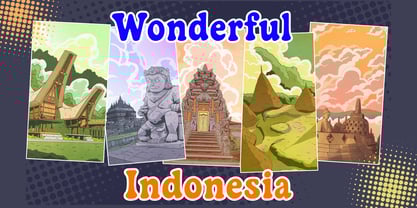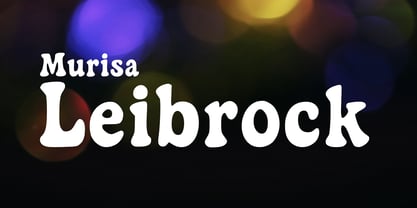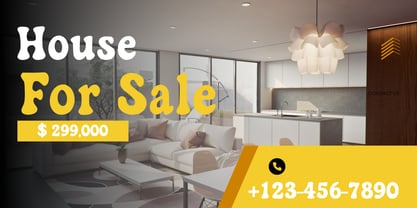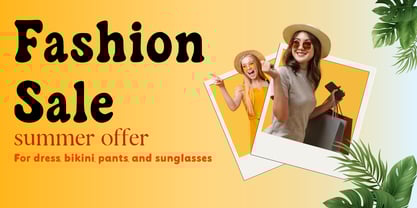
Murisa Leibrock
The Murisa Leibrock Font Family was designed by Lili Sadili and published by Murisa Studio. Murisa Leibrock contains 2 styles and family package options. More about this family
🎨 Murisa Leidbrock — Where Whimsy Meets Bold Expression
Step into a world of vibrant personality and irresistible charm with Murisa Leidbrock, a typeface that refuses to whisper. With its bulbous terminals, subtle serifs, and cartoon-inspired curves, this font brings a joyful punch to any design.
Why Designers Love It
• 💥 Bold yet friendly — perfect for headlines that smile
• 🎈 Rounded contours for a soft, approachable vibe
• 🧩 Consistent structure for seamless layout integration
• 🖍️ Ideal for posters, packaging, children’s books, and playful branding
Each character is crafted with precision and flair, making your message not just readable—but unforgettable. Whether you're designing for fun or impact, Murisa Leidbrock delivers both in style.
Let your creativity bounce. Let your words play. Let your designs speak loud and clear.